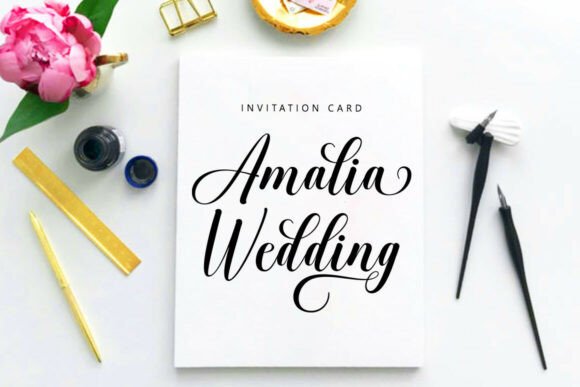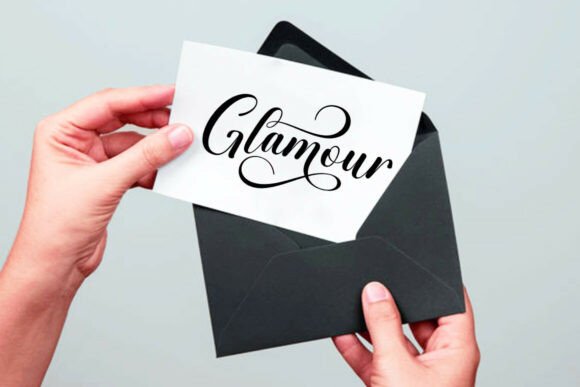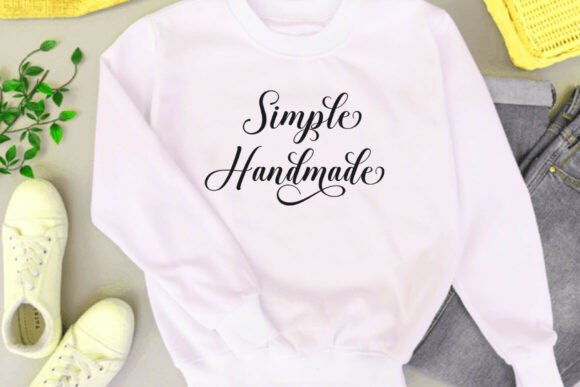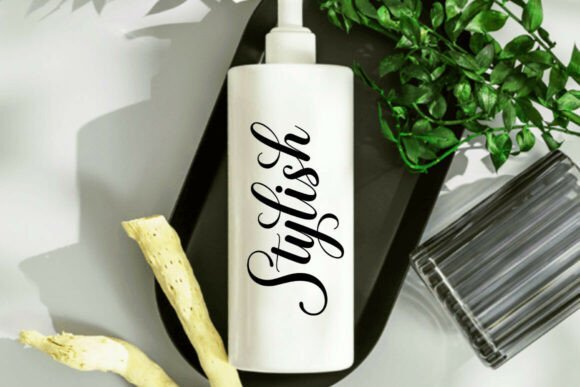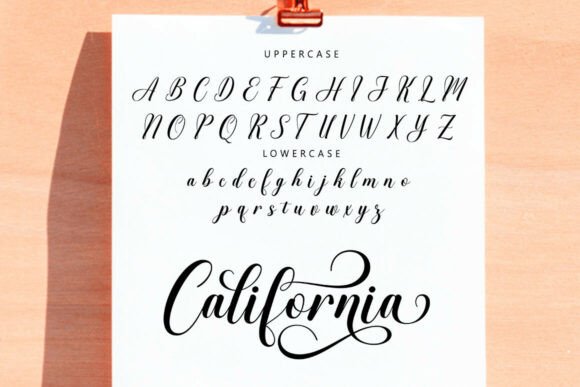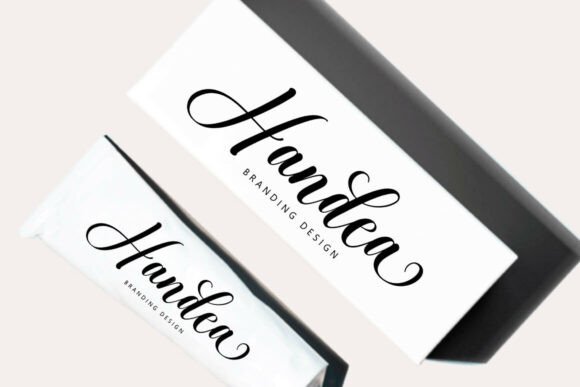
The California Font: A Timeless Elegance for Your Creative Projects
Have you ever been in the middle of a design project, pouring your heart and soul into it, only to get stuck on one thing: finding the perfect font? I certainly have. Recently, I was working on a wedding invitation design for a client, and I just couldn’t find a font that captured the elegance and romance I was looking for. That’s when I stumbled upon the California Font, and it completely transformed my design.
A Personal Review: What I Love About California Font
The California Font is a calligraphy font that combines the beauty of traditional calligraphy with a modern twist. Here are some things I absolutely love about it:
- ✨ Elegant and romantic style that’s perfect for formal designs
- ✅ Refined, clean, and highly legible
- ✨ Feminine, sensual, and glamorous undertones that add a touch of sophistication
- ✅ Includes uppercase, lowercase, alternate characters, ligatures, punctuation, numbers, and multilingual support
While I adore the California Font, there are a few minor quirks to be aware of:
- ⚠️ Some users may find the font a bit too delicate for certain design applications
- 🤔 The font’s elegance may not be suitable for very casual or playful designs
The California Font was designed with the intention of capturing the essence of California’s laid-back, yet sophisticated style. The font’s creator aimed to combine traditional calligraphy with modern elements, resulting in a unique and elegant font that’s perfect for a wide range of design applications.
| Is the California Font suitable for body text? | While the font is elegant and refined, it may not be the best choice for long-form body text due to its delicate nature. |
The California Font is a versatile and elegant addition to any design project. Its combination of traditional calligraphy and modern elements makes it perfect for a wide range of applications, from formal invitations to romantic novels. With its refined, clean, and highly legible design, it’s no wonder this font has become a favorite among designers and crafters alike.